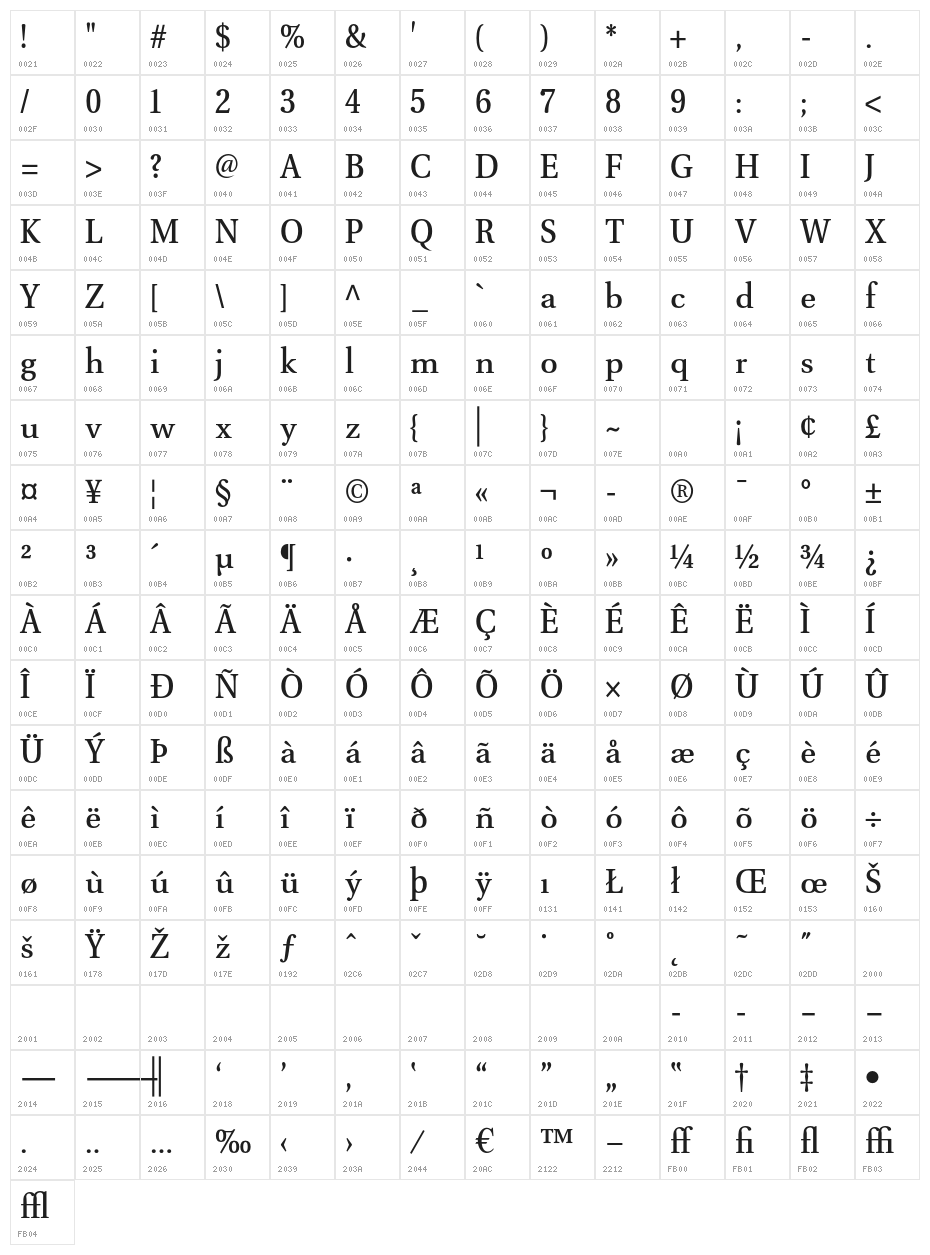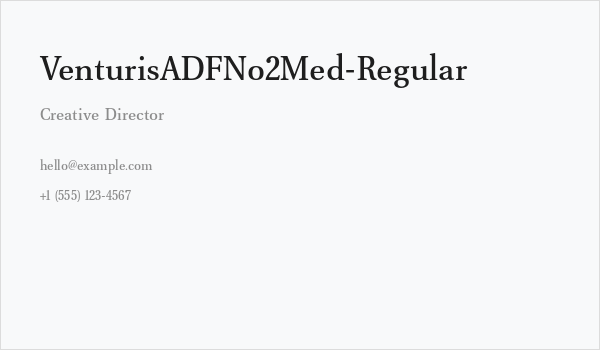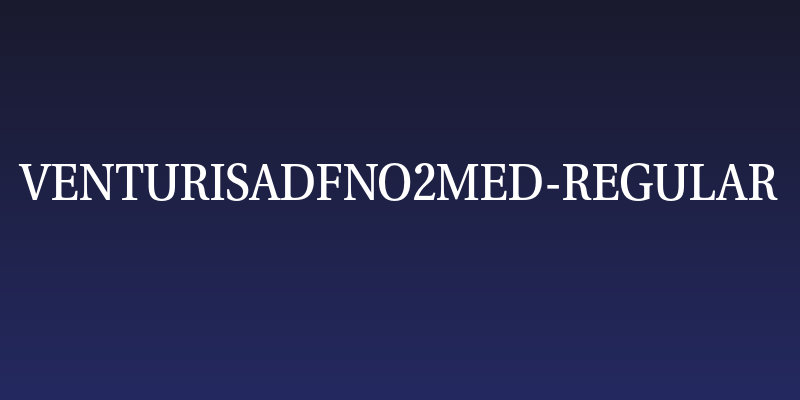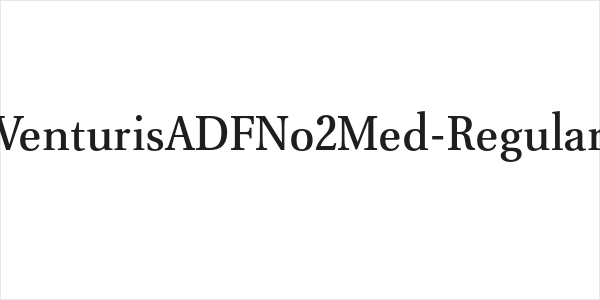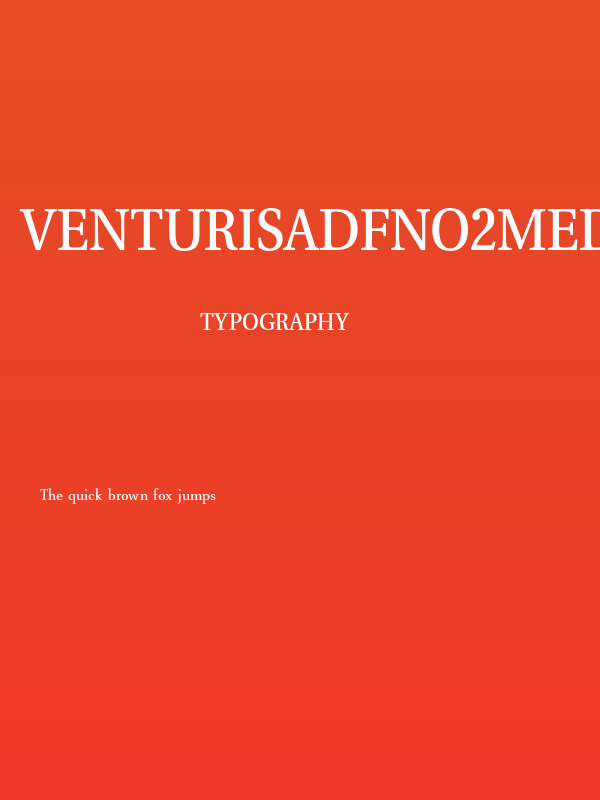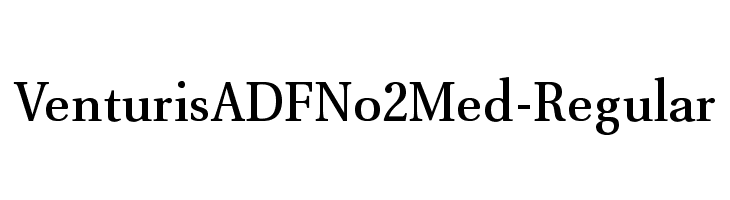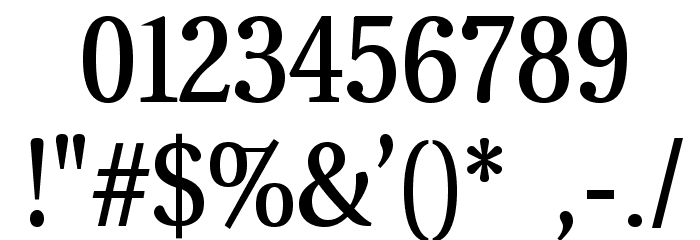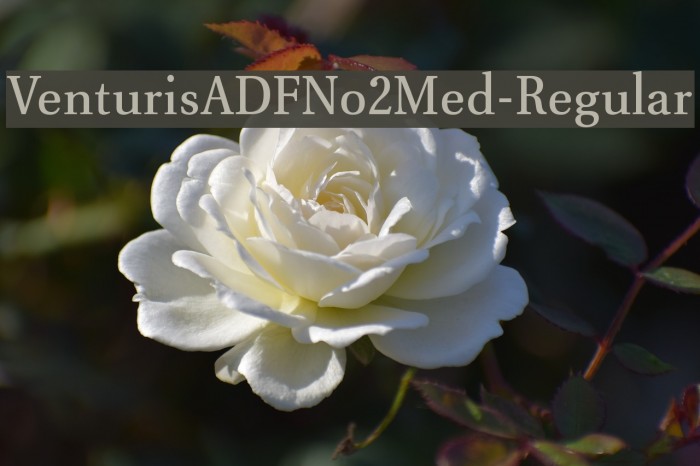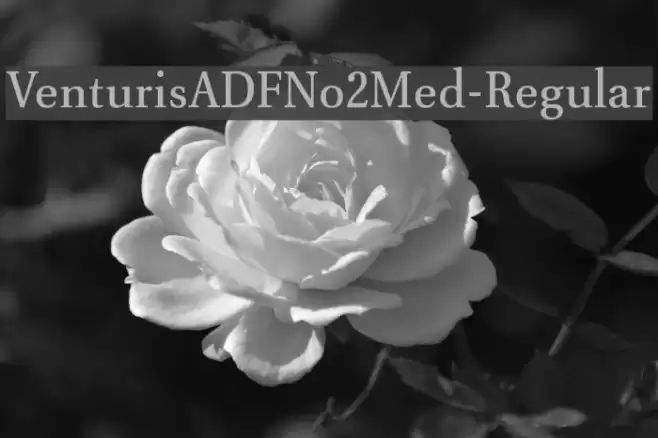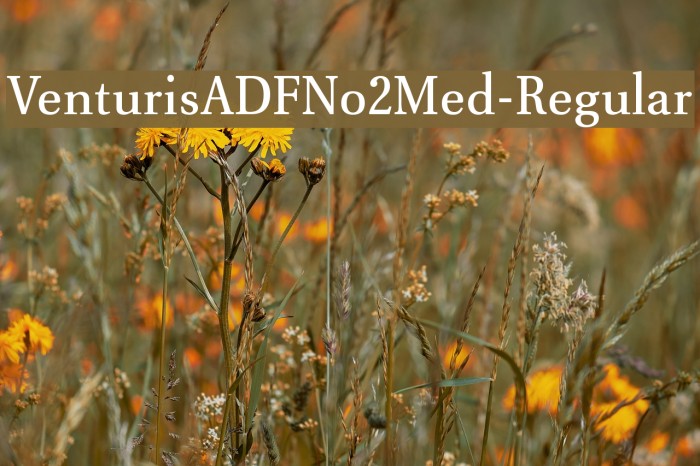
VenturisADFNo2Med-Regular Font
VenturisADFNo2Med-Regular Description
This typeface exudes a classic elegance with its well-defined serifs and balanced proportions. The uppercase letters stand tall and commanding, while the lowercase characters maintain a harmonious flow. The numerals are clear and distinct, ensuring readability. Special characters are crafted with precision, adding to the font's versatility. Its medium weight offers a perfect balance, making it suitable for various applications. The overall design is timeless, appealing to those who appreciate traditional aesthetics with a modern touch.
| Overall Style | Classic |
| Use Case | Headlines, Body text, Logos |
| Proposed Projects | Ideal for editorial design, book covers, formal invitations, and branding projects that require a touch of sophistication. |